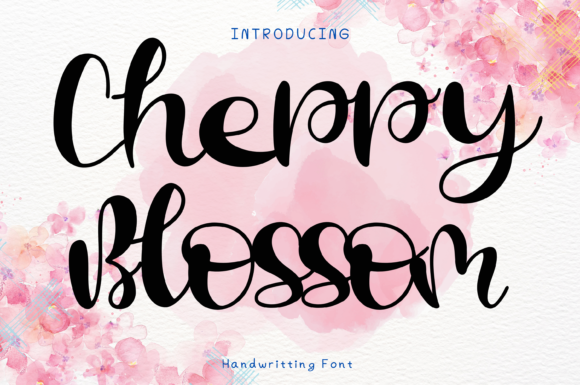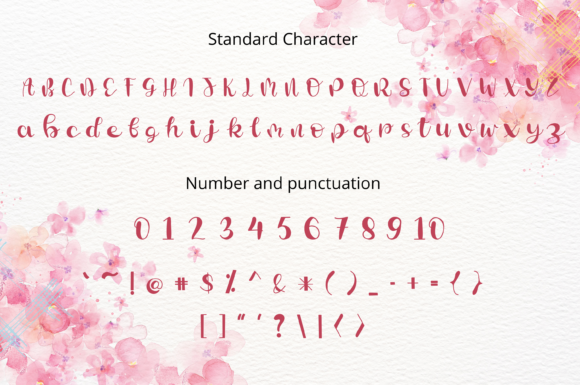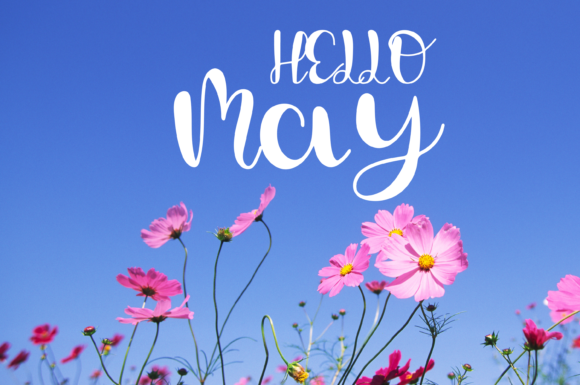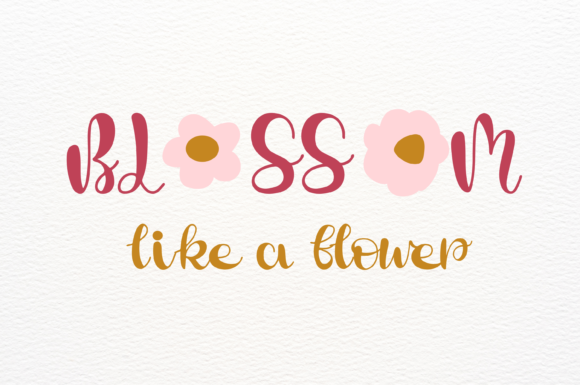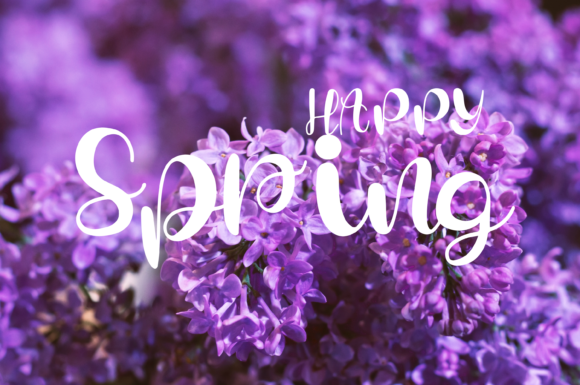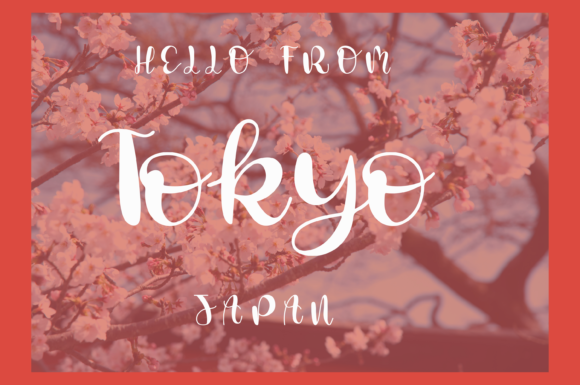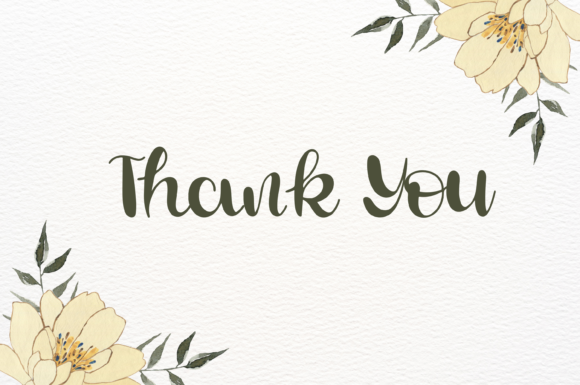
The Perfect Touch: Elevating Your Designs with the Cherry Blossom Font
Remember that moment when you’re brainstorming ideas for your next creative project and you just can’t seem to find the right fit? The blank page stares back at you, waiting for that spark of inspiration that will bring it all together. It’s in these moments that the perfect font can be the game-changer you need to take your design to the next level.
Enter the Cherry Blossom Font, a charming handwritten font that effortlessly adds a touch of whimsy and sophistication to any project. With its unique flair and elegant lines, this font is the perfect addition to a wide range of creative endeavors, from branding and marketing materials to digital art and more.
For designers, the Cherry Blossom Font offers a valuable asset: the ability to instantly elevate their designs with a single, stylish element. Whether you’re working on a personal project or a client’s campaign, this versatile font is sure to bring a professional and eye-catching touch to your work.
Key Features of Cherry Blossom Font
- Font Family: Cherry Blossom Font is a unique, hand-drawn script font designed to evoke the beauty of cherry blossoms. It is available in a single font family.
- Unique Characteristics: Cherry Blossom Font features delicate, hand-drawn strokes and subtle flourishes, giving it a distinctive and elegant appearance.
Designer Review: Cherry Blossom Font
I recently had the chance to work with the Cherry Blossom Font, and I must say it’s a lovely addition to any design project. ✨ The delicate, hand-drawn style is perfect for spring-themed or Japanese-inspired designs. It’s also great for adding a touch of whimsy to headers or titles.
Here are some of the things that I think work well:
- ✨ Beautiful, detailed illustrations of cherry blossoms
- ✨ Suitable for a wide range of design projects, from stationery to web design
- ✨ Easy to read, even at smaller font sizes
However, there are a few limitations that I’d like to mention:
- ⚠️ Limited character set, which may require additional font combinations for more complex text
- ⚠️ Not ideal for body text, as it can be difficult to read in large blocks of text
Overall, I think the Cherry Blossom Font is a great choice for designers looking to add a touch of elegance and whimsy to their projects. While it may not be suitable for every design need, it’s a beautiful addition to any designer’s toolkit.
Use the Cherry Blossom Font to create a sense of elegance and sophistication in your designs.
Pair the font with pastel colors and floral elements for a beautiful and feminine look.
Experiment with different font sizes and styles to create a unique and eye-catching design.
The Cherry Blossom Font is perfect for:
Floral-themed designs and branding.
Spring and summer-themed projects.
Alternatives to Cherry Blossom Font
Carolyna Pro is a modern, elegant script font perfect for wedding invitations, event branding, and high-end packaging. It features flowing connections and refined strokes, giving it a sophisticated feel. When to use: Luxury branding, weddings, and special events. Comparison to Cherry Blossom Font: Carolyna Pro has a more polished and refined look, making it suitable for high-end applications. It lacks the whimsical, hand-painted feel of Cherry Blossom Font but offers a more professional appearance.
Great Vibes is a beautiful, cursive script font ideal for creating a friendly and approachable atmosphere. It features a relaxed, handwritten feel and is perfect for branding, packaging, and marketing materials. When to use: Friendly branding, packaging, and marketing materials. Comparison to Cherry Blossom Font: Great Vibes has a more casual and approachable feel, making it suitable for everyday applications. It lacks the delicate, floral feel of Cherry Blossom Font but offers a more laid-back appearance.